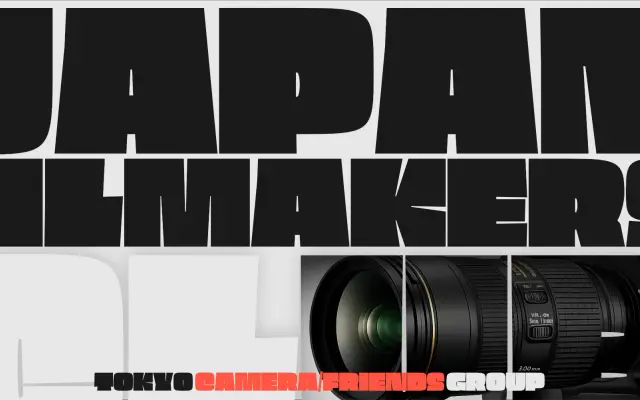
PGF Posters
A single-weight display face built for poster work, using tightly spaced letterforms with thin counters to fill space and interact with imagery.
Designed specifically for poster and typographic background use, it relies on a high glyph density to pack into layouts and sit alongside photographs or graphic elements. Despite the narrow counter forms, the foundry claims usable legibility for most titling contexts. Two stylistic sets and a slashed zero are the only OpenType features on offer, keeping the toolset modest.
Described explicitly as a display font for poster design with high-density spacing and thin counter forms; its primary function is titling and typographic backgrounds rather than text setting.